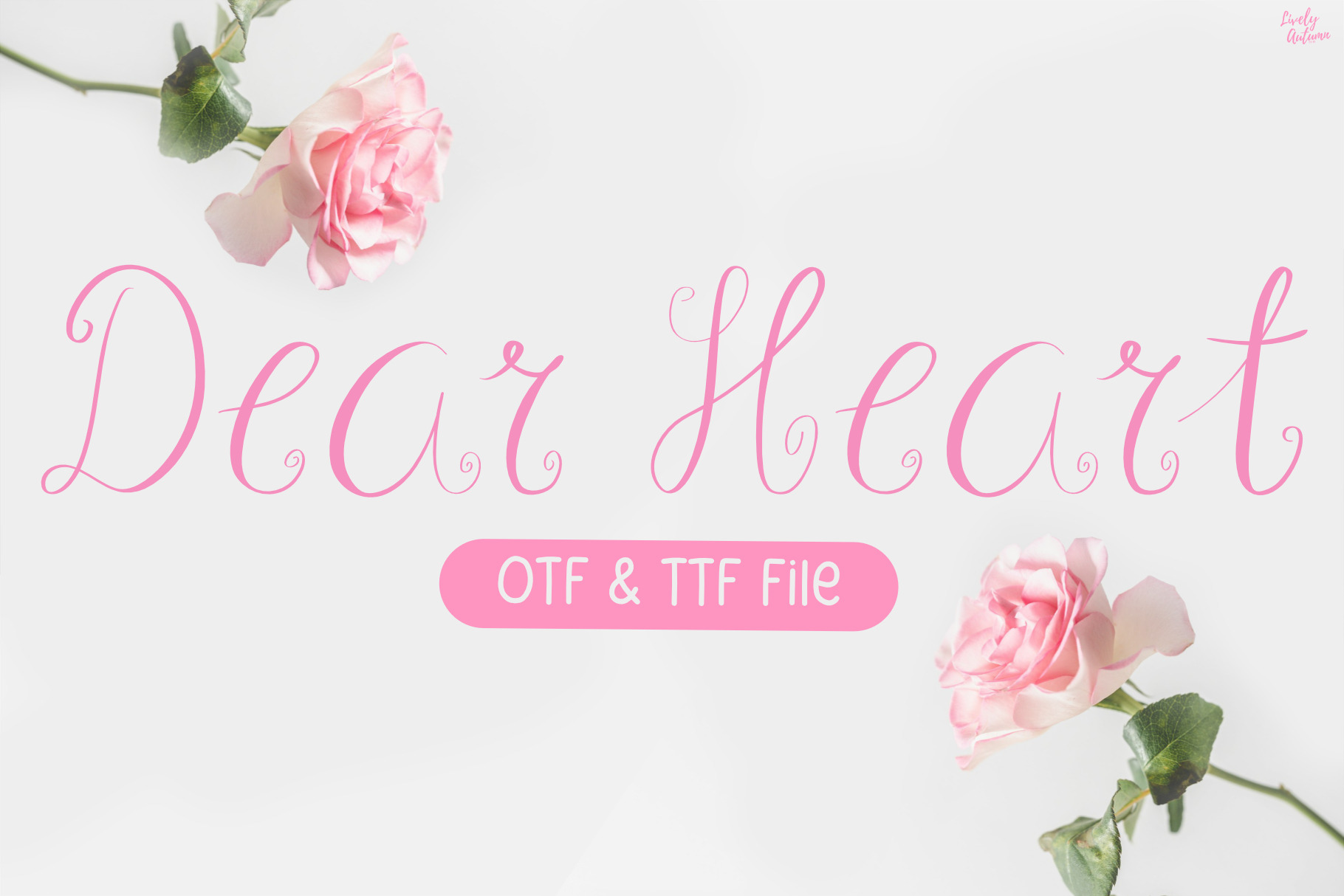
Dear Heart | Script Font
Dear Heart is a cursive handwritten script font with non-connecting letters. Perfect for your personal projects and various projects. From invitations to posters, social media graphics, journals, stickers and much more.
★★ A cursive style script font, characters are intentionally not connected ★★
- Font includes: uppercase, lowercase, numbers, and punctuationA cursive-style script font